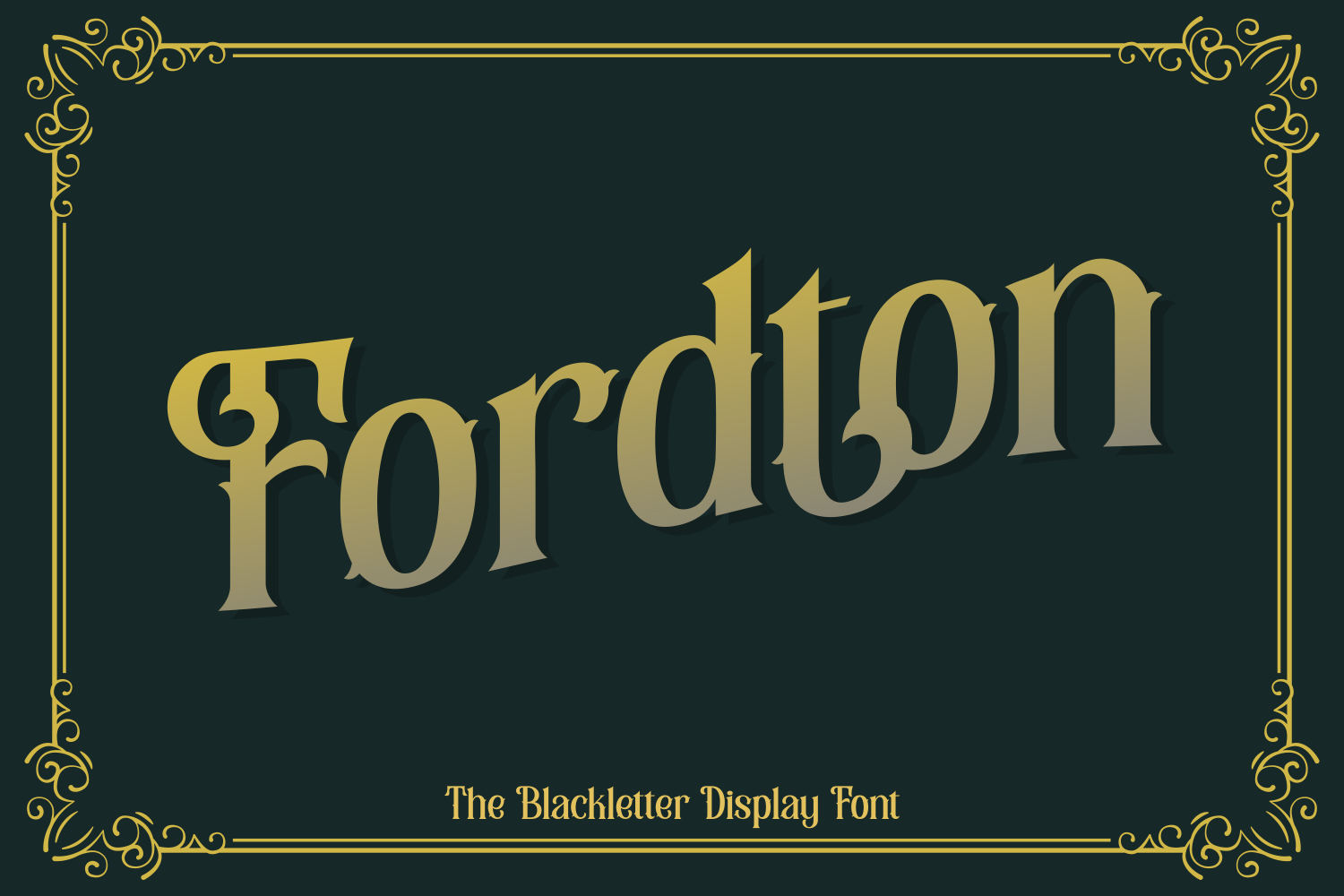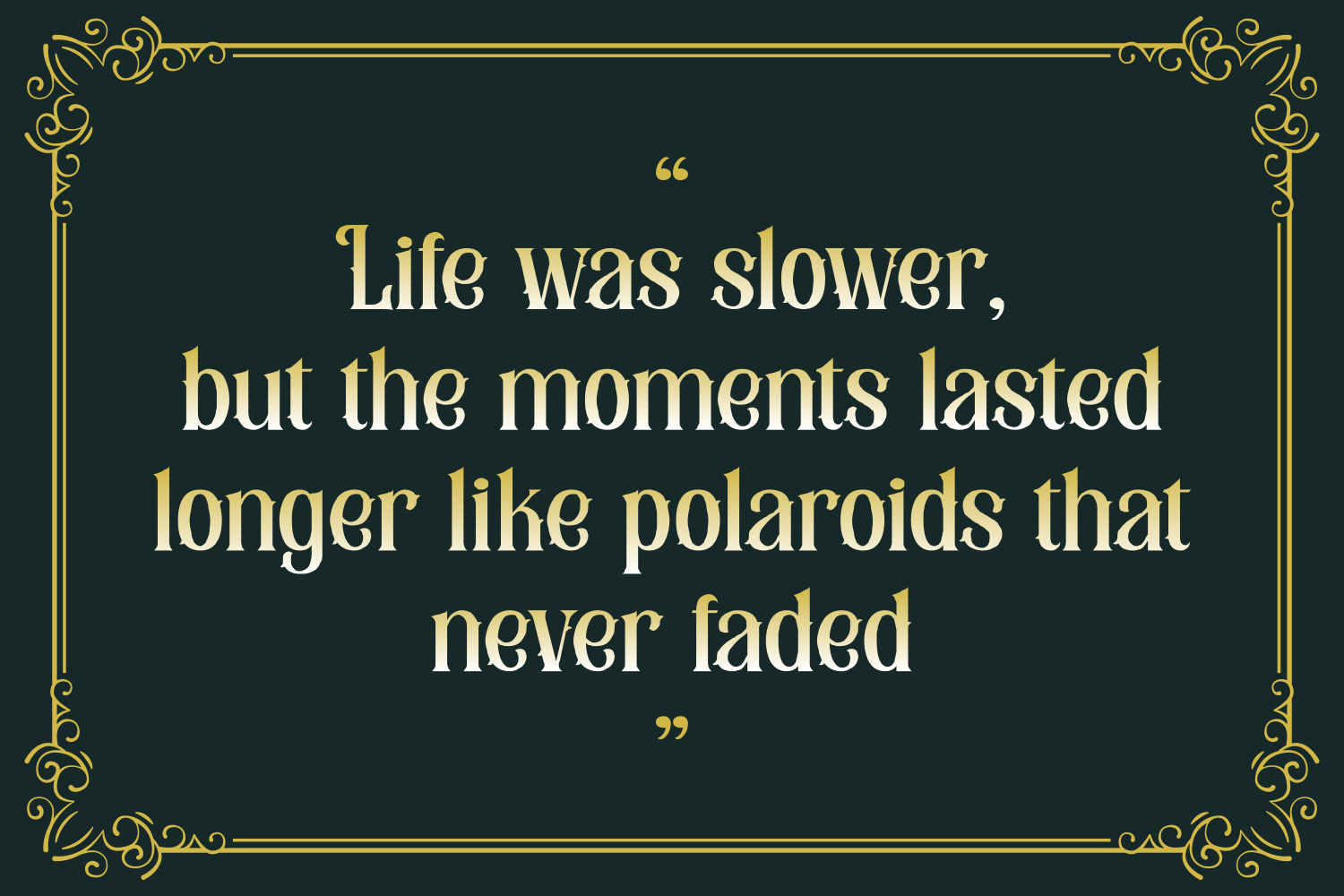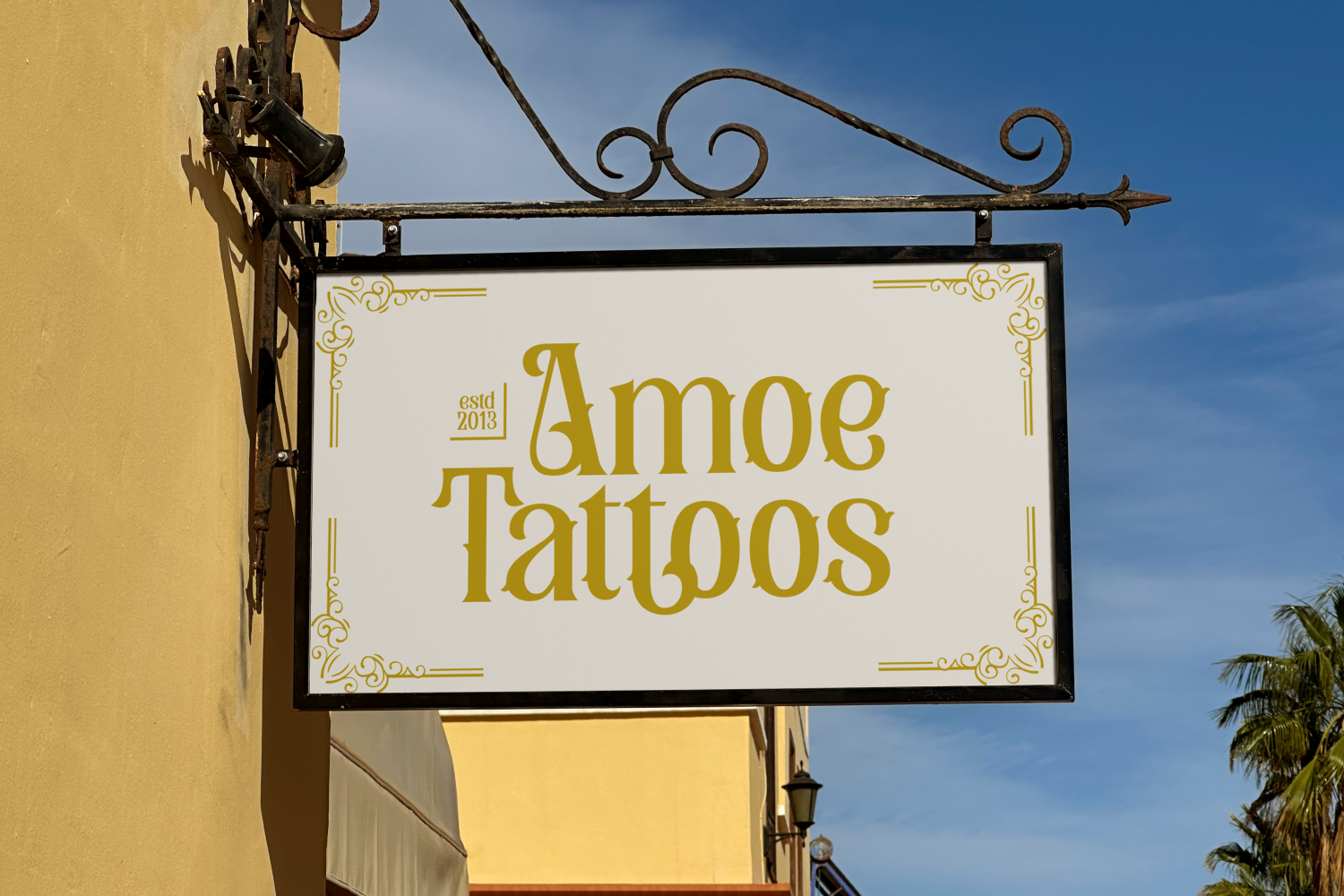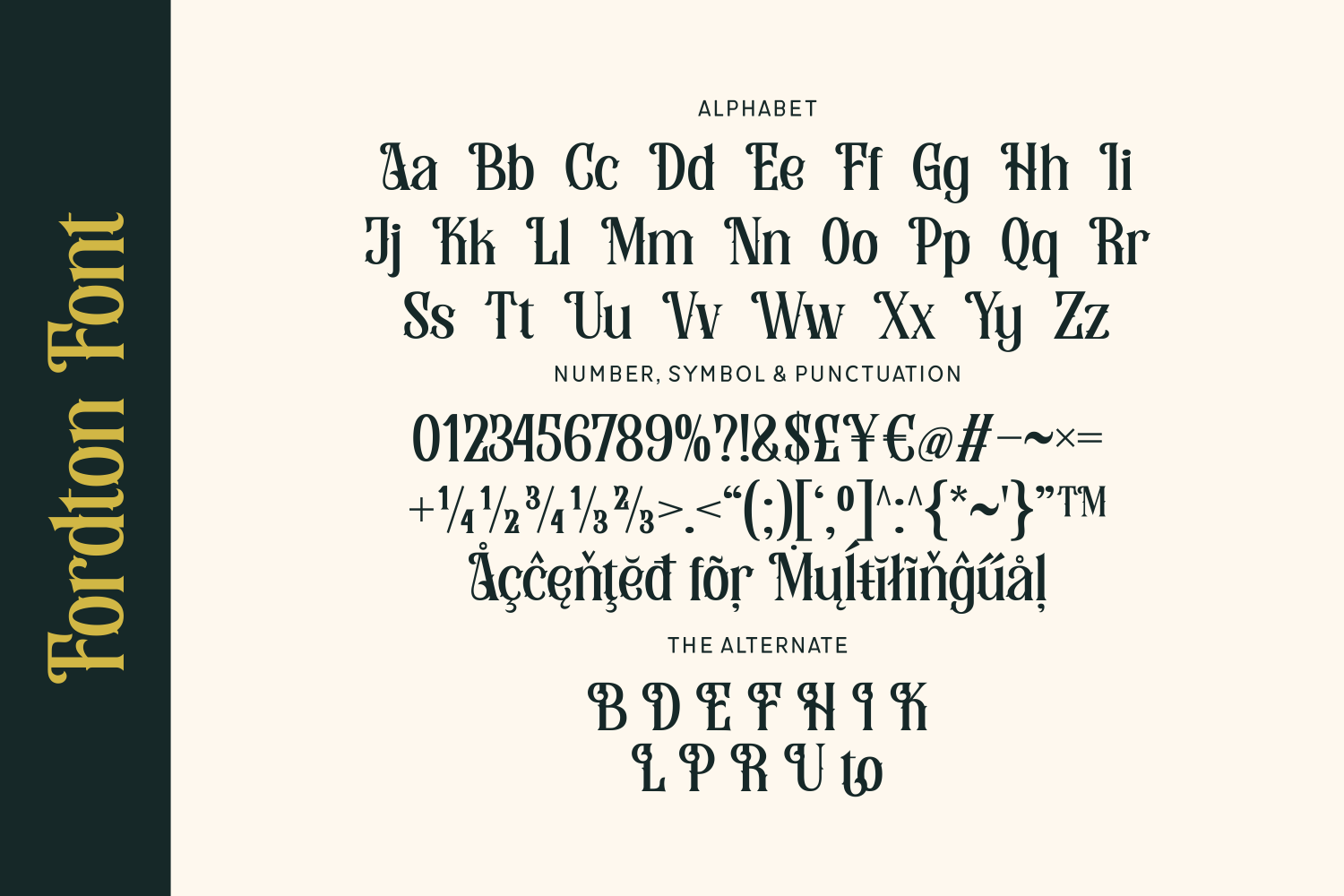
Fordton is a refined blackletter display font with classic elegance and a smooth modern twist. Its slanted presentation and graceful serifs give it a noble and cinematic look—ideal for titles, branding, editorial work, or historical projects that need a polished yet traditional voice.